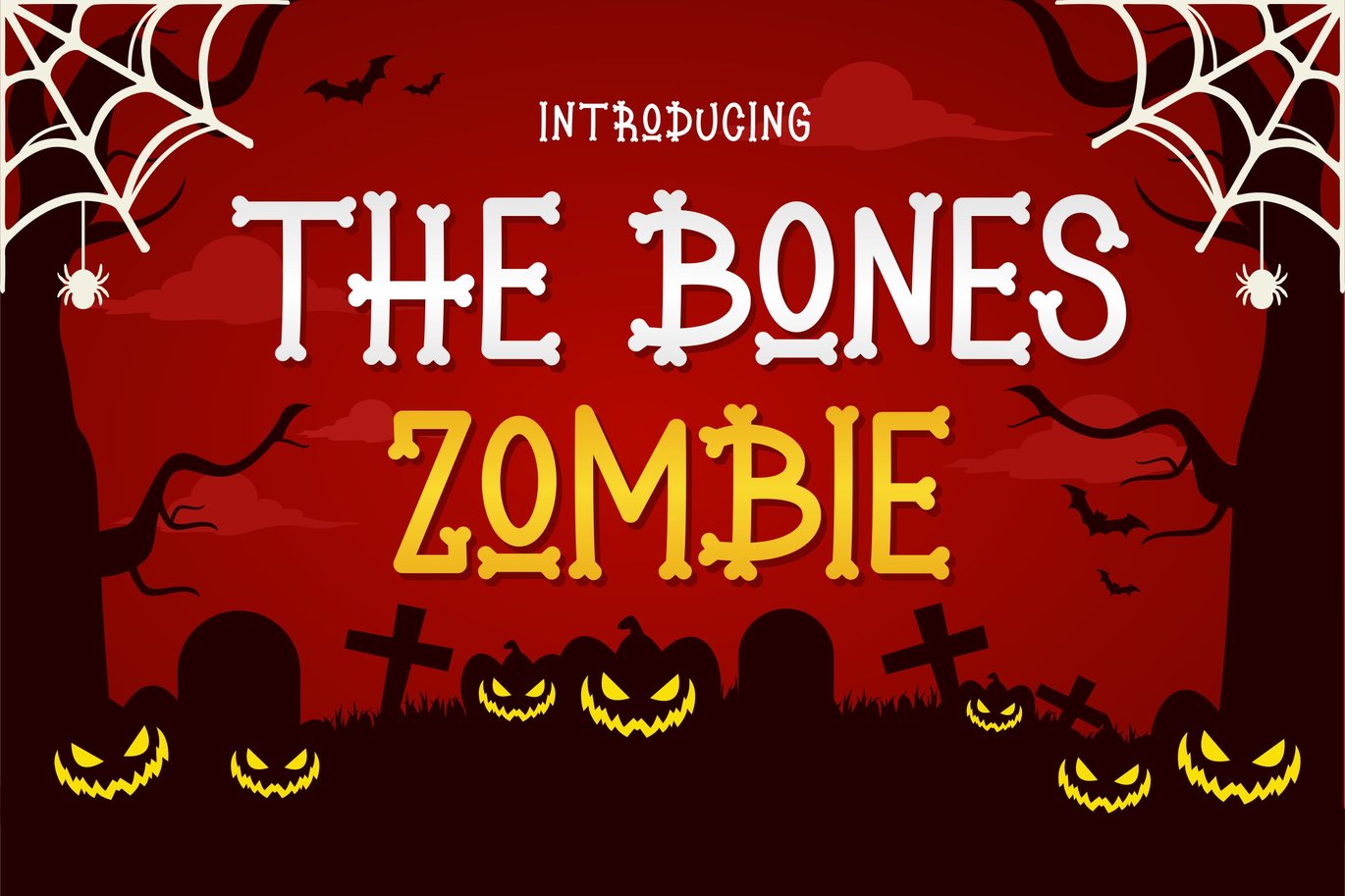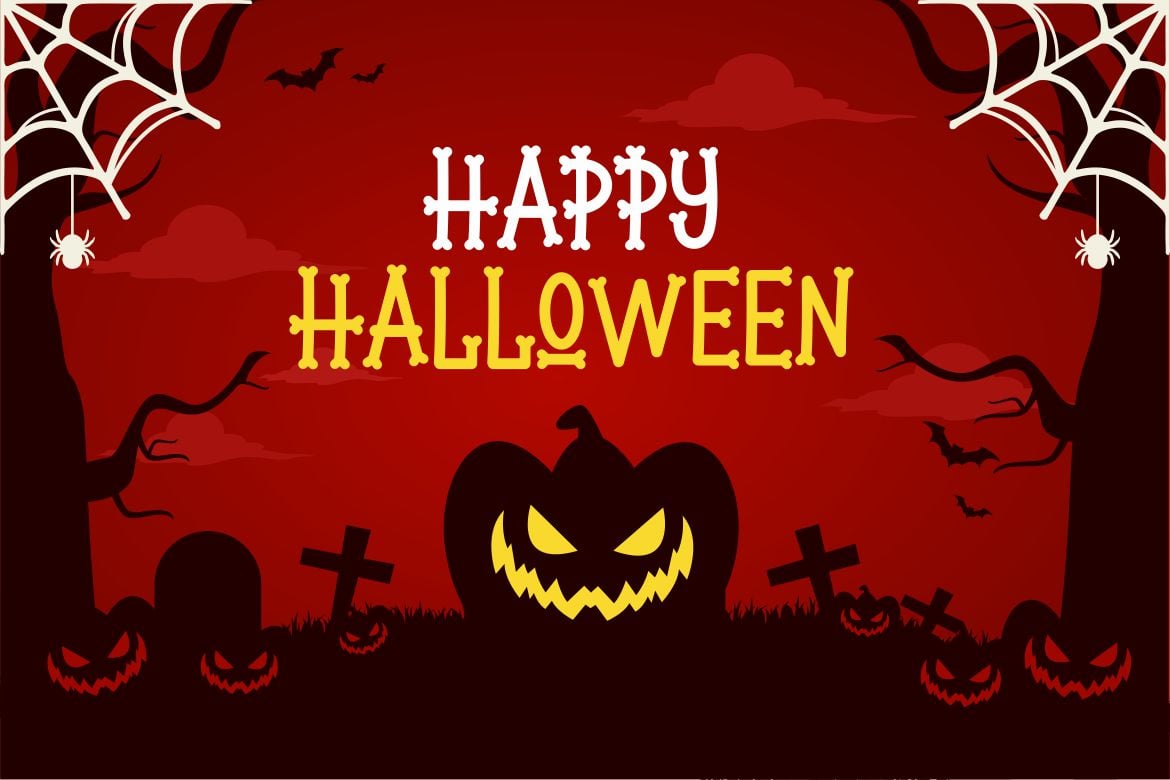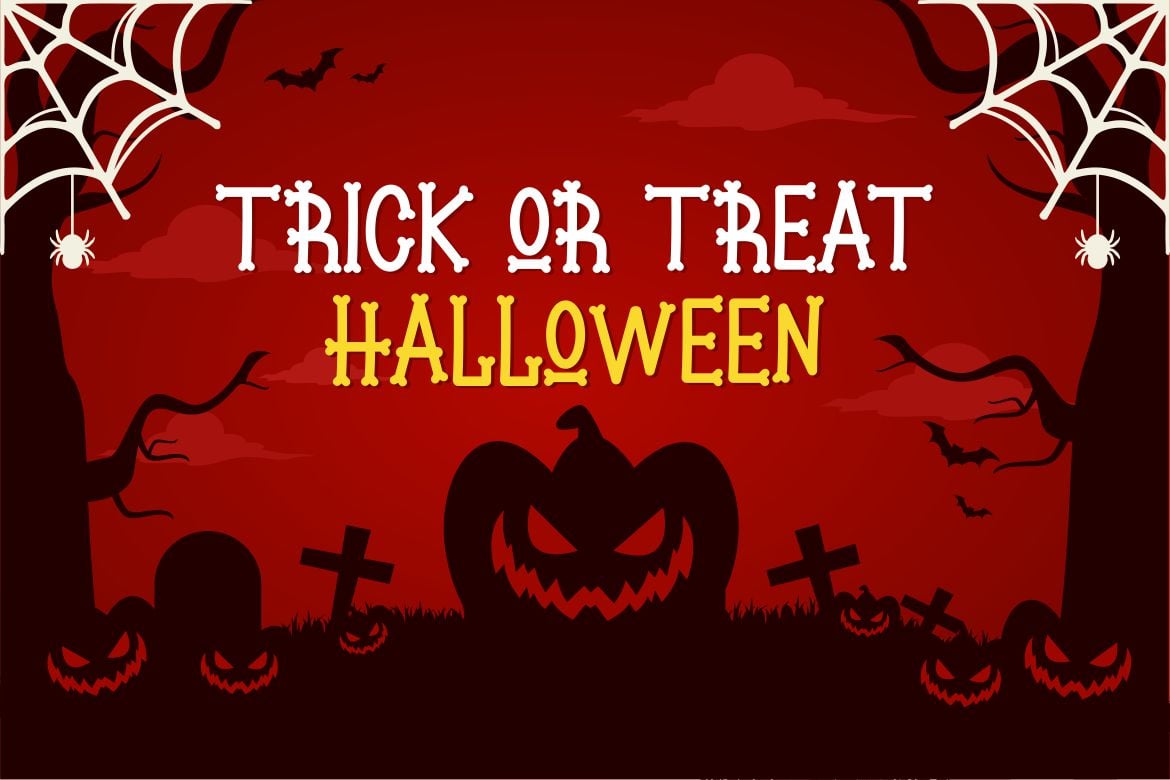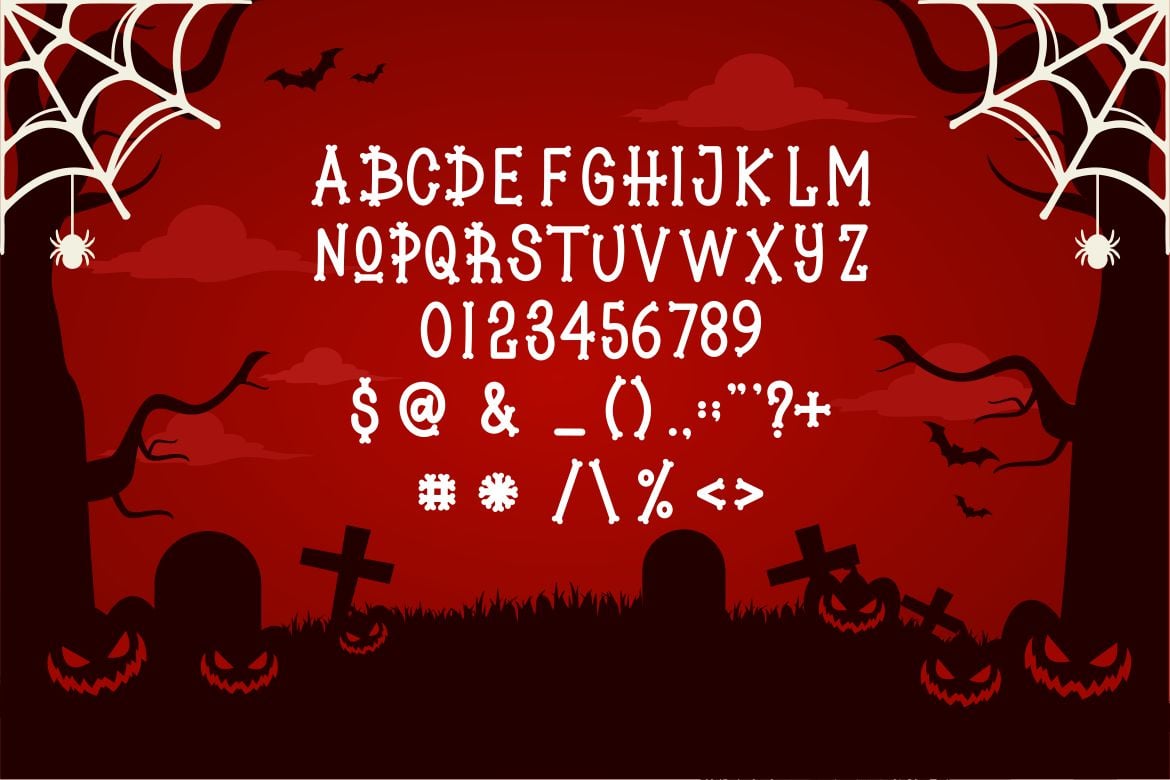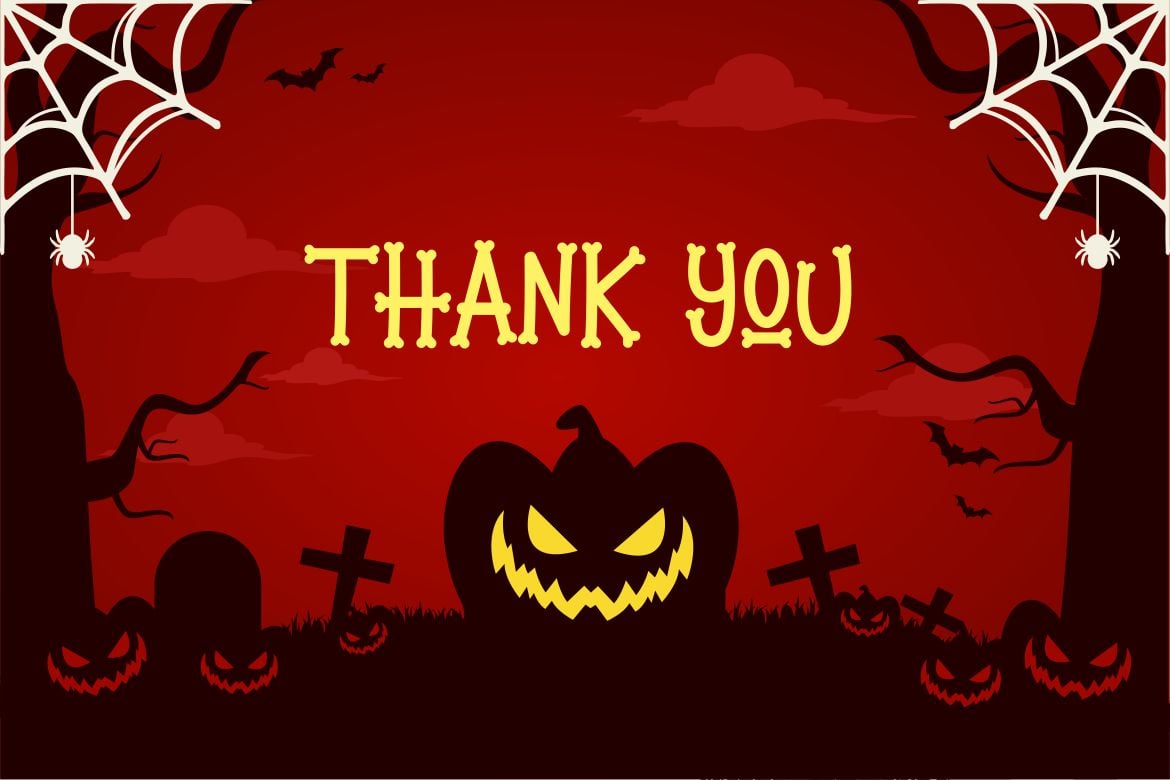
The Bones Zombie – Halloween Font
Introducing our new product The Bones Zombie – Modern Halloween Font
The Bones Zombie is a bold, modern display font with playful flair, ideal for attention-grabbing headlines, logos, and diverse design projects. Versatile and readable in both digital and print, The Bones Zombie adds a dynamic touch to your message.